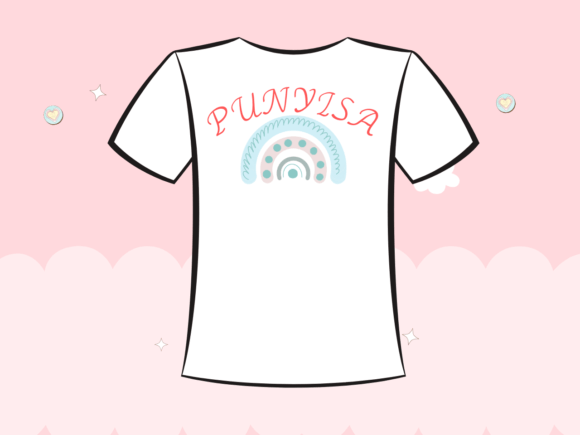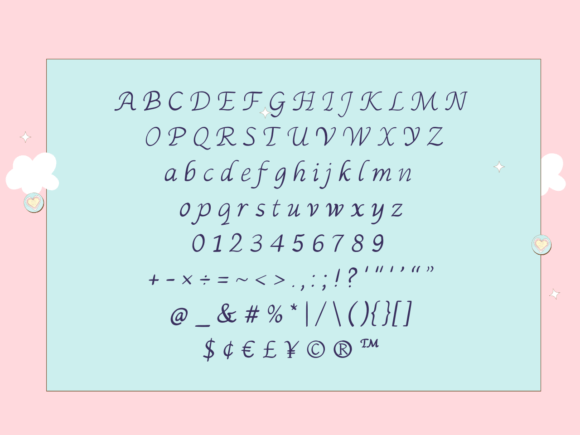
Introduction to Punyisa Font
Punyisa is a fun and cute handwritten script font.
Add it to your crafty ideas and enjoy the results .
Key Features of Punyisa Font
Why Choose Punyisa Font?
Punyisa Font offers exceptional quality and versatility, making it a valuable addition to your design toolkit. Whether you’re creating for personal projects or commercial use, Punyisa Font delivers professional results.